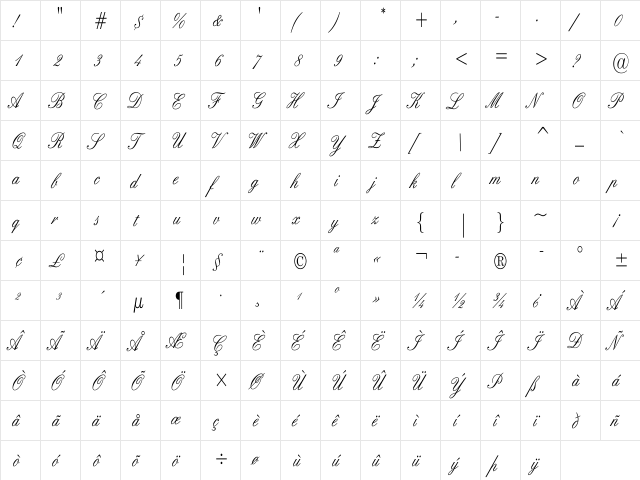
English Cn Regular
Design Context for English Cn Typeface
English Cn is a composed and adaptable typeface that performs quietly and consistently across a wide range of design contexts.